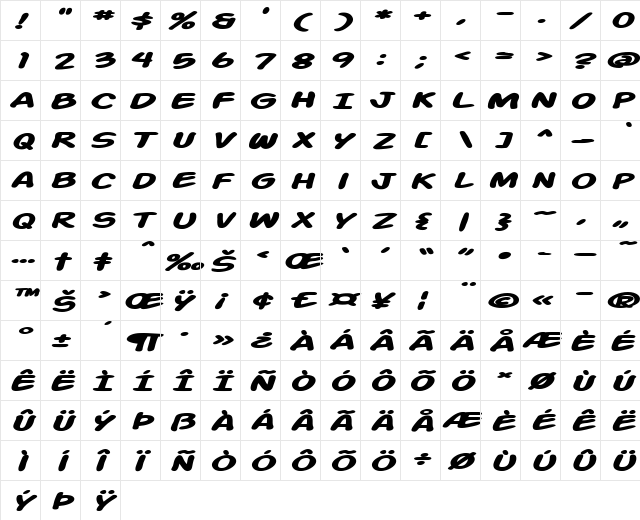
Action Man Extended Bold Italic
Design Context for Action Man Extended Typeface
Action Man Extended is a composed and adaptable typeface that performs quietly and consistently across a wide range of design contexts. The dynamic lean of this cut emphasises speed and emphasis in any layout. The heavy weight commands attention and anchors typographic hierarchies.
Pro Tip: Use Action Man Extended for emphasis, pull quotes, and subheadings where its slanted energy can add rhythm to the layout.